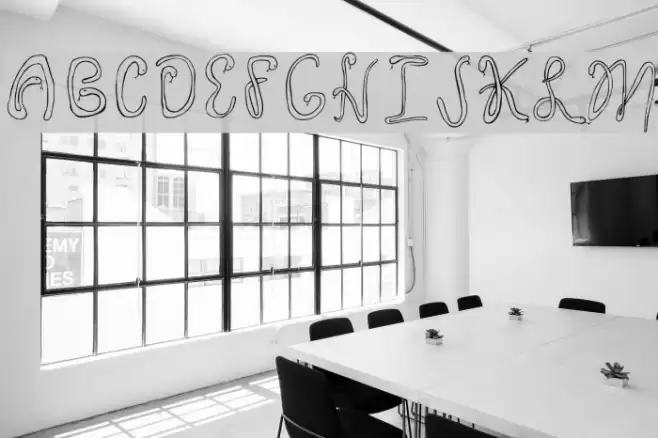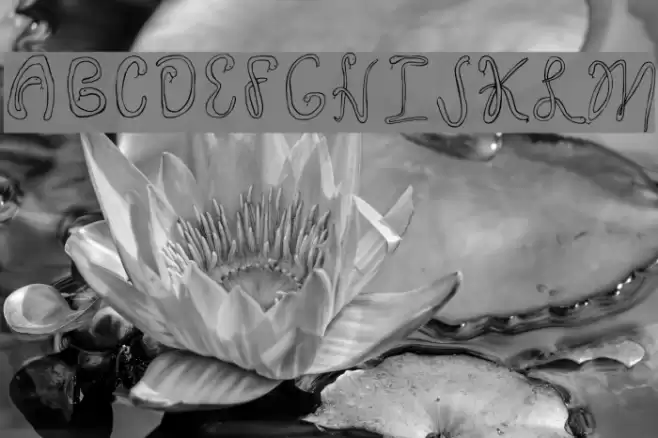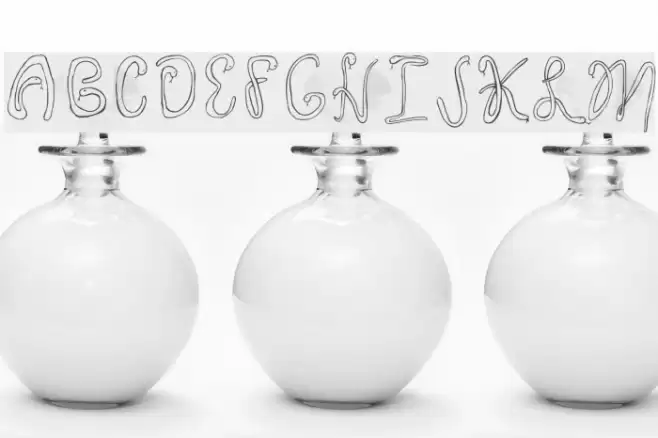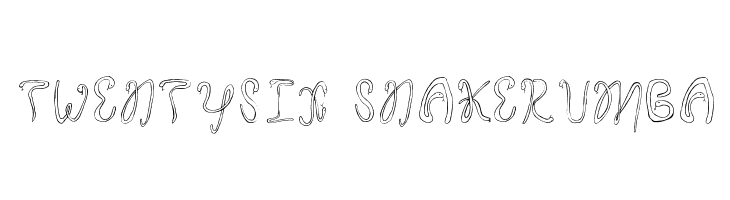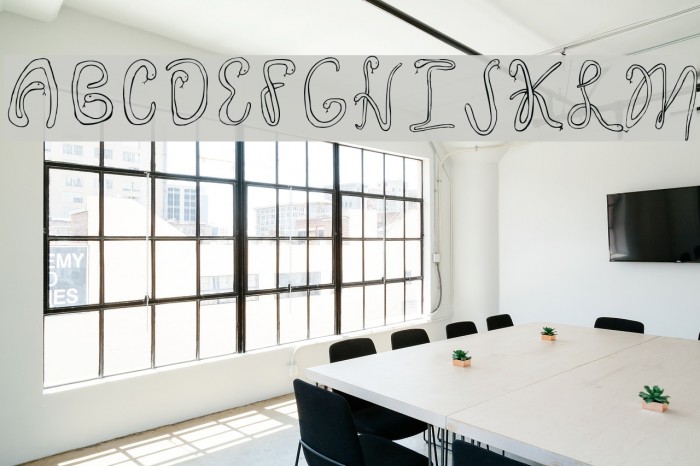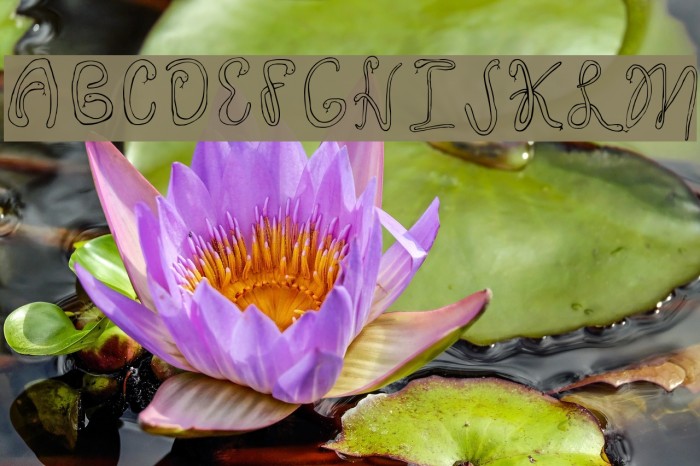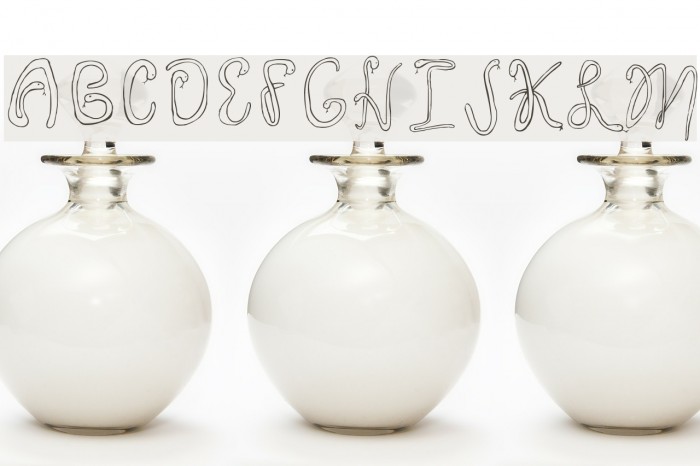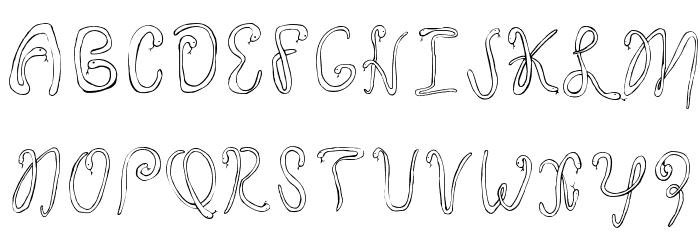
Twentysix Snakerumba Font
Twentysix Snakerumba Description
This font features a unique and playful design with a hand-drawn aesthetic. The characters are composed of intertwined lines that create a sense of movement and fluidity. Each letter has a whimsical quality, with varying line thicknesses that add to its dynamic appearance. The uppercase letters are particularly expressive, with curves and loops that give them a lively character. The font includes a full set of uppercase letters, but lacks lowercase letters and numbers. It also features a series of decorative symbols, each encased in a circle with a star and letter 'M' motif, adding a bold and graphic element to the overall design. This font is ideal for projects that require a creative and artistic touch.
A playful, hand-drawn font with intertwined lines and dynamic curves from Decorative fonts.
- Proposed Projects: Ideal for creative projects, artistic posters, branding, and decorative elements.
- Overall Style: Artistic, Whimsical
- Use Case: Logos, Posters, Creative Designs